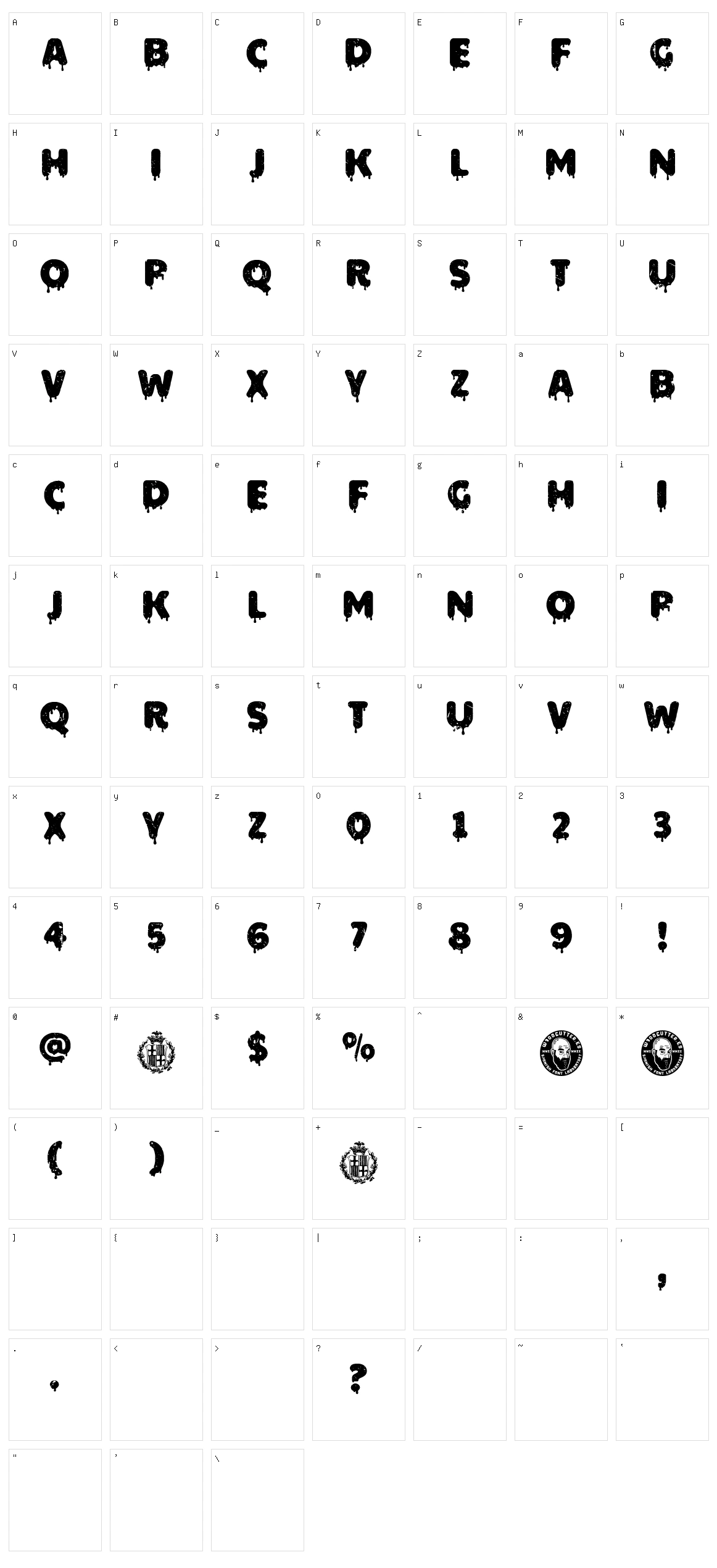
The free font Barcelona Scared is carefully designed by Woodcutter, showcasing a thoughtful balance of creativity and usability and falls under the Horror font style. When you download the ZIP file, it contains only 151.98 KB of font files, making it lightweight and quick to download. Please review the license details below to understand permitted usage and distribution rights. If license information is not available, we recommend using this font for personal projects only or contacting the author directly for commercial usage permissions.